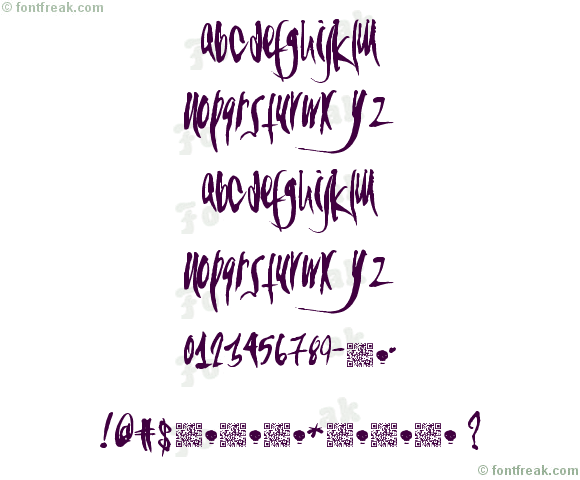
CaliforniaDesigns
About CaliforniaDesigns
The CaliforniaDesigns font by XEROGRAPHER FONTS is a striking script typeface that embodies a unique blend of artistry and flair, making it a standout choice for creative projects. This font features a fluid, handwritten style with a playful touch, characterized by its irregular baseline and dynamic strokes. The moderate stroke weight and subtle contrast create an inviting, organic look that enhances its visual appeal, while the generous spacing between letters adds to its legibility and charm.
CaliforniaDesigns is perfect for a variety of applications. Its whimsical yet sophisticated design makes it an ideal choice for wedding invitations, where it can convey a sense of elegance and personalization. Additionally, it shines in branding and logo design for small businesses, particularly in the food and beverage industry, where it can evoke a casual, friendly atmosphere. Movie posters and promotional materials also benefit from this font's expressive nature, lending an eye-catching quality that draws attention. Furthermore, it works well for social media graphics, helping content creators add a unique touch to their visual storytelling.
What sets the CaliforniaDesigns font apart is its ability to combine artistic flair with versatility. Whether used in digital or print formats, this font captures the spirit of California’s laid-back lifestyle while offering endless possibilities for design. For those interested in enhancing their projects, the CaliforniaDesigns font free download is an opportunity not to be missed.